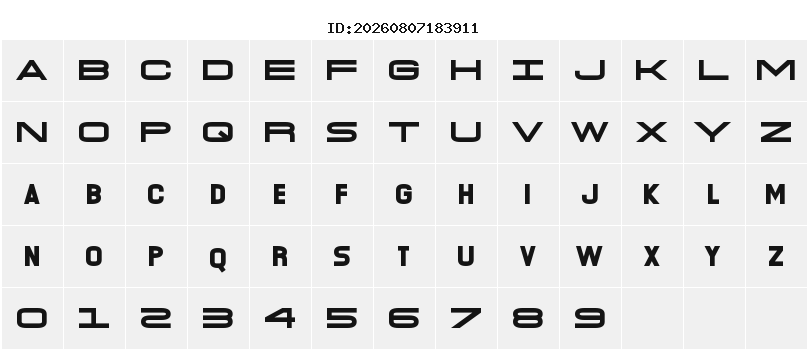
O.K. Retro Preview
• Font Name: O.K. Retro
• Full Font Name: O.K. Retro
About O.K. Retro.otf
O.K. Retro.otf is a modern, elegant sans-serif font designed for ultimate readability and visual harmony. Perfect for branding, headlines, web design, and print materials.